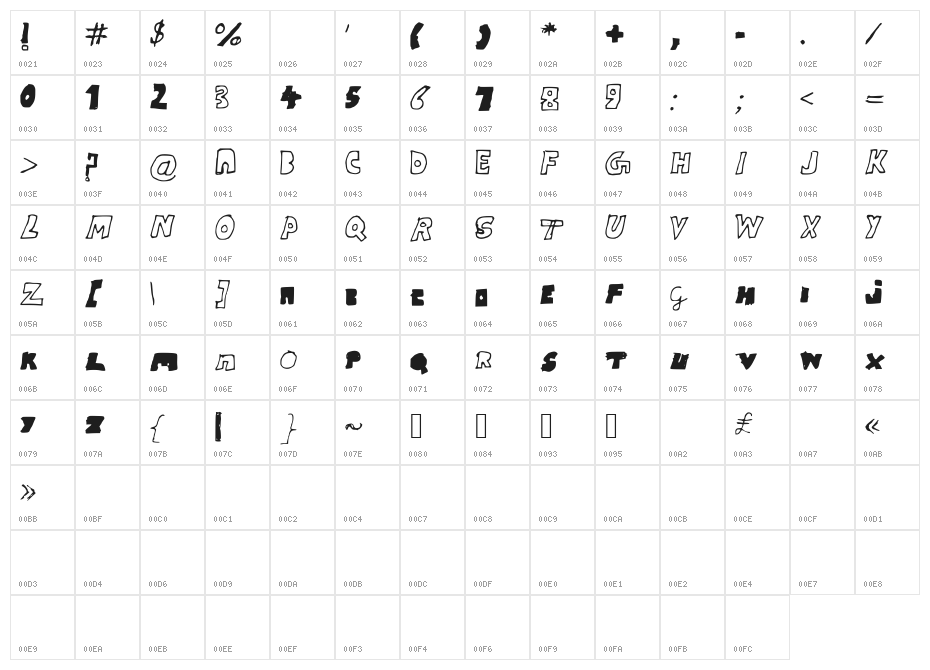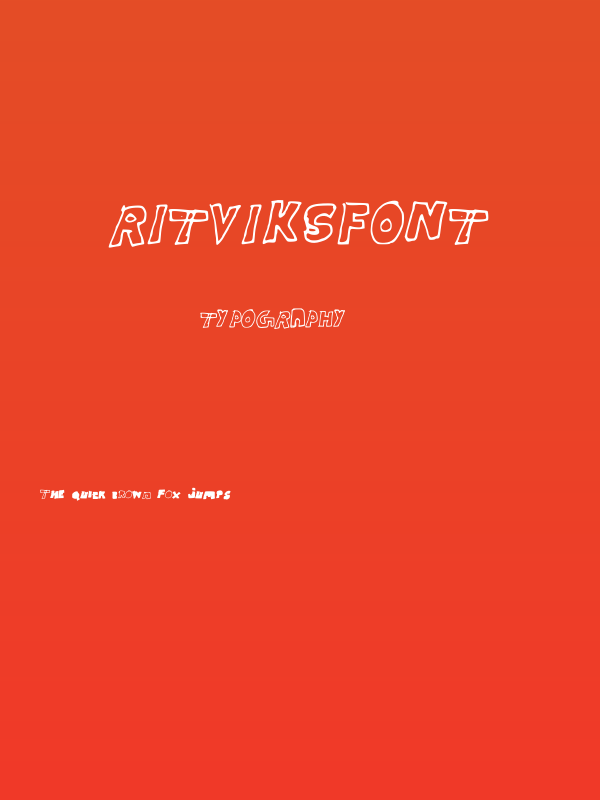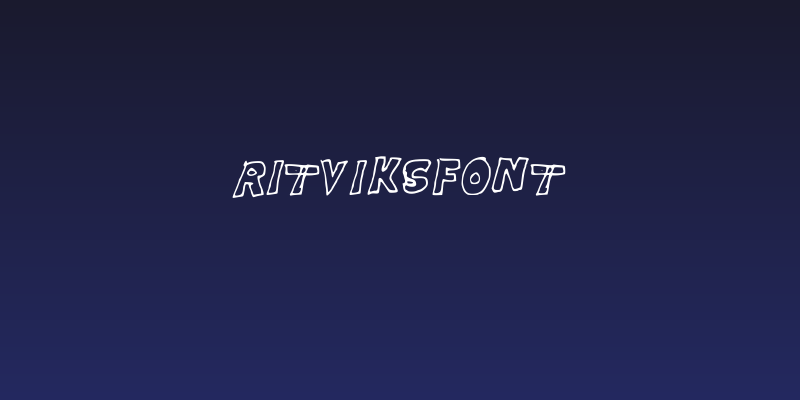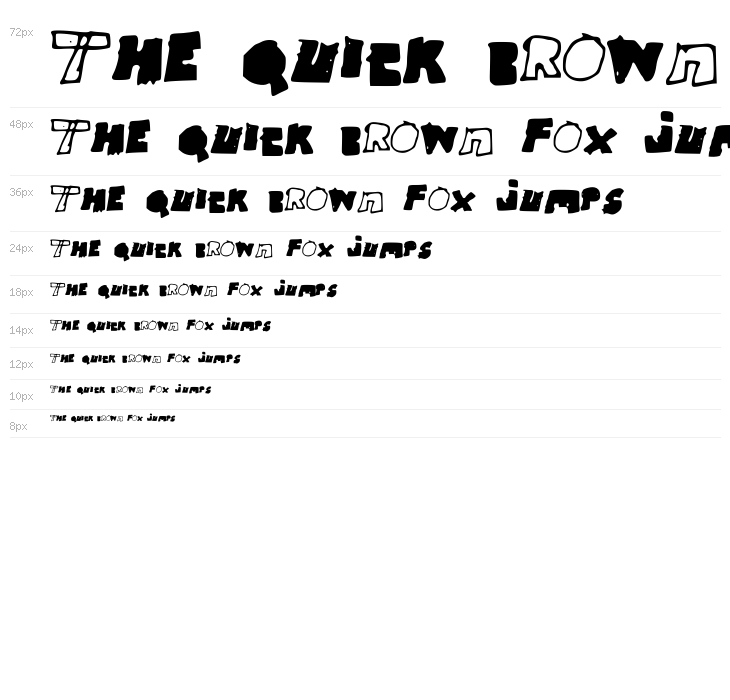
RitviksFont Font
RitviksFont Description
This font features a playful and bold design with a hand-drawn aesthetic. The uppercase letters have a hollow, outlined style, while the lowercase letters are filled and solid, creating a striking contrast. The numbers and special characters maintain this bold, hand-crafted look, adding to the font's quirky and artistic appeal. The irregular shapes and varying thicknesses of the strokes give it a dynamic and lively feel, making it ideal for creative and informal projects. Its unique style stands out, making it suitable for eye-catching designs.
| Overall Style | Playful, Artistic, Quirky |
| Proposed Projects | Ideal for posters, children's books, comic strips, and creative branding. |